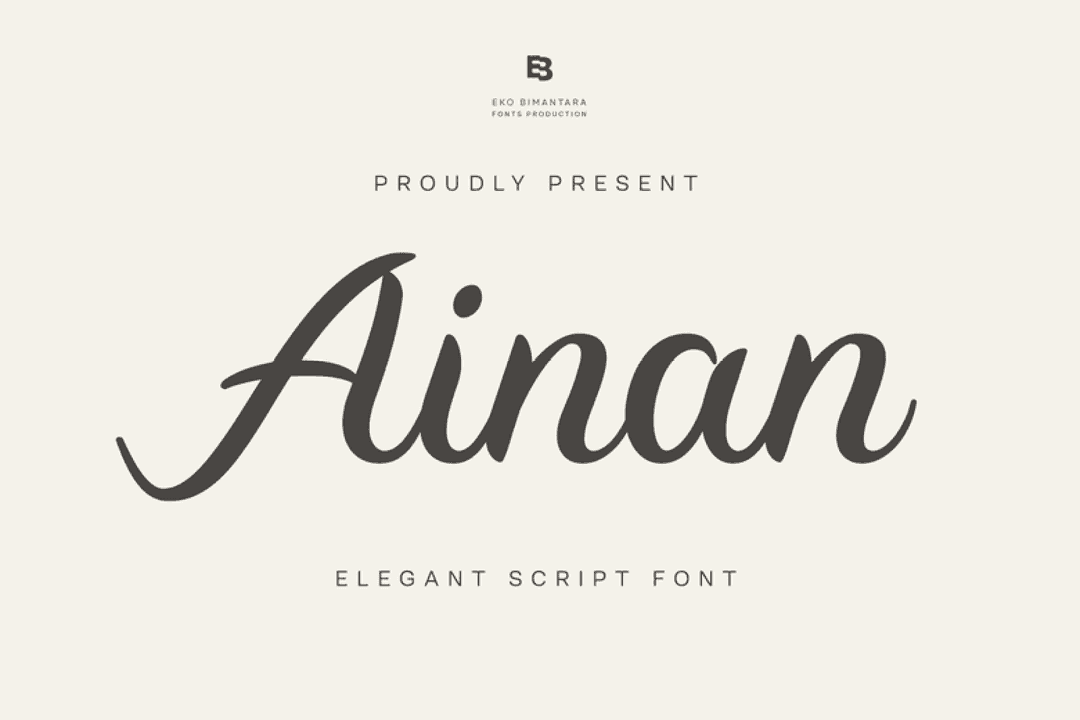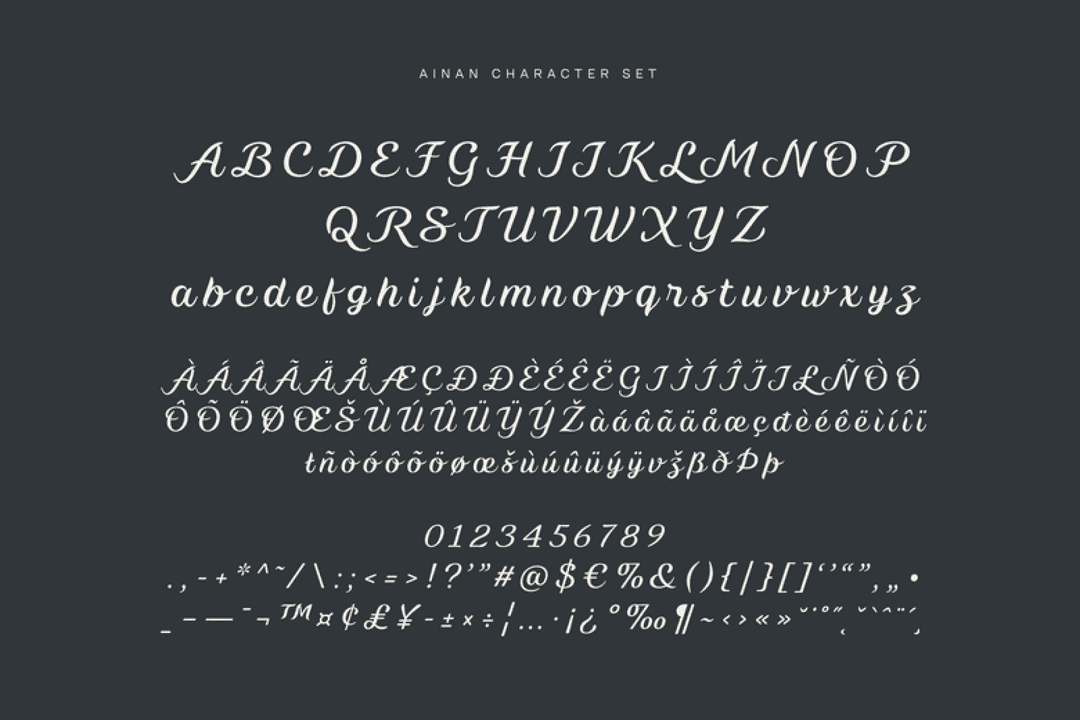
Eko Bimantara designed Ainan as a sophisticated retro script font in October 2022. This typeface features soft strokes and proportional letterforms for optimal use in creative designs such as branding logos header titles headers.